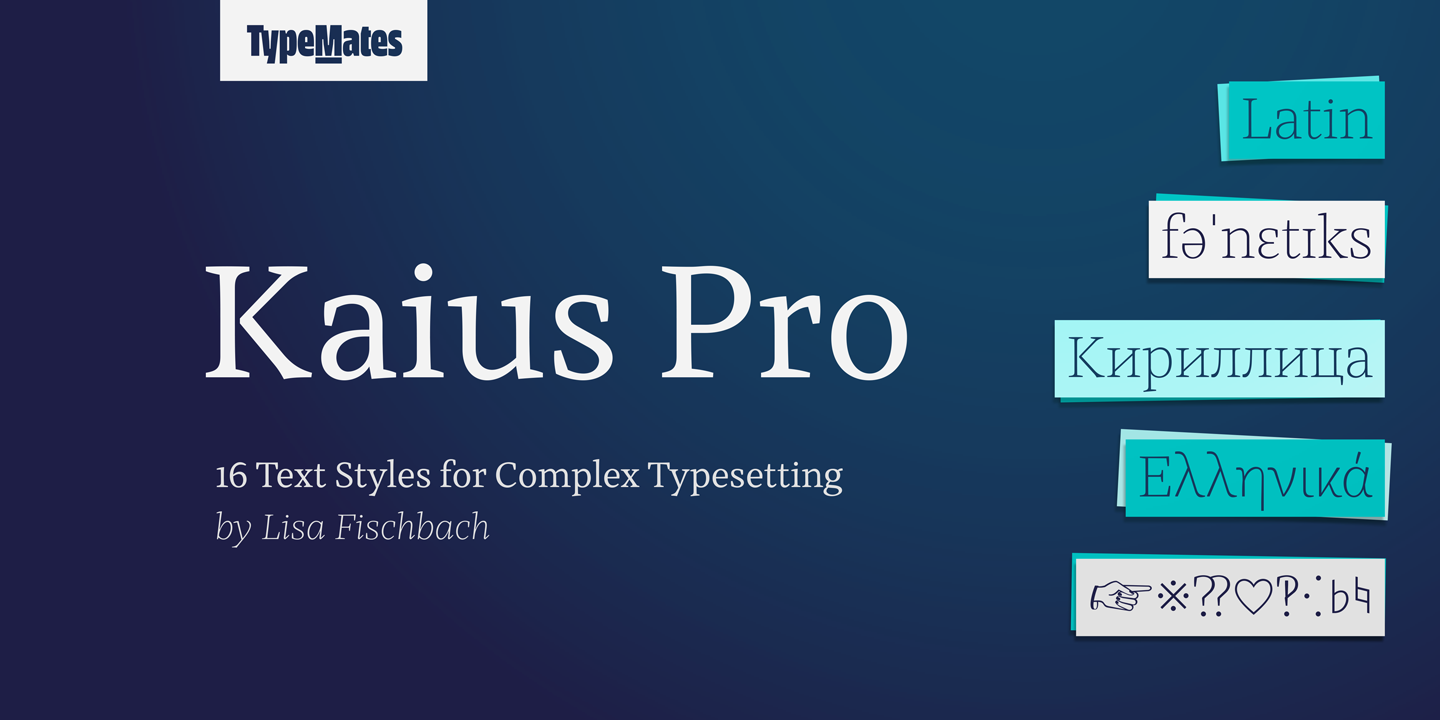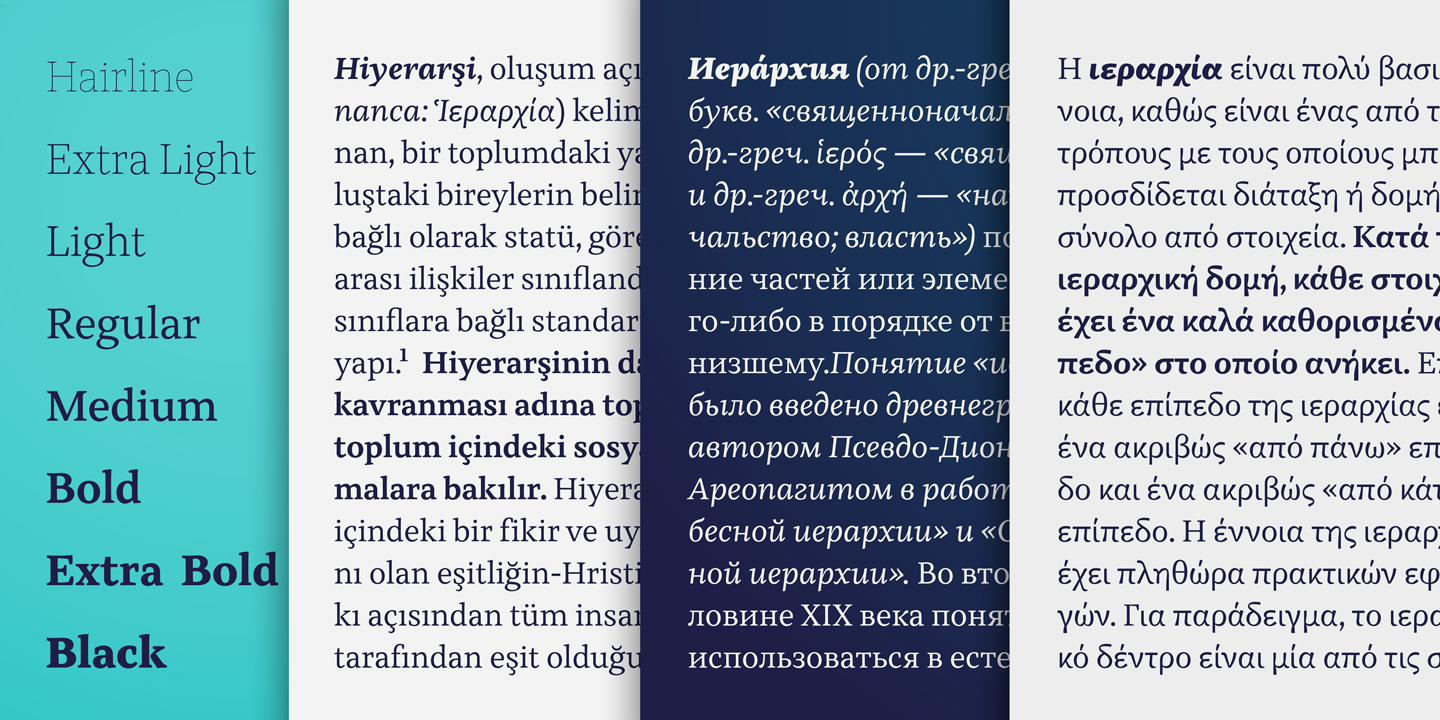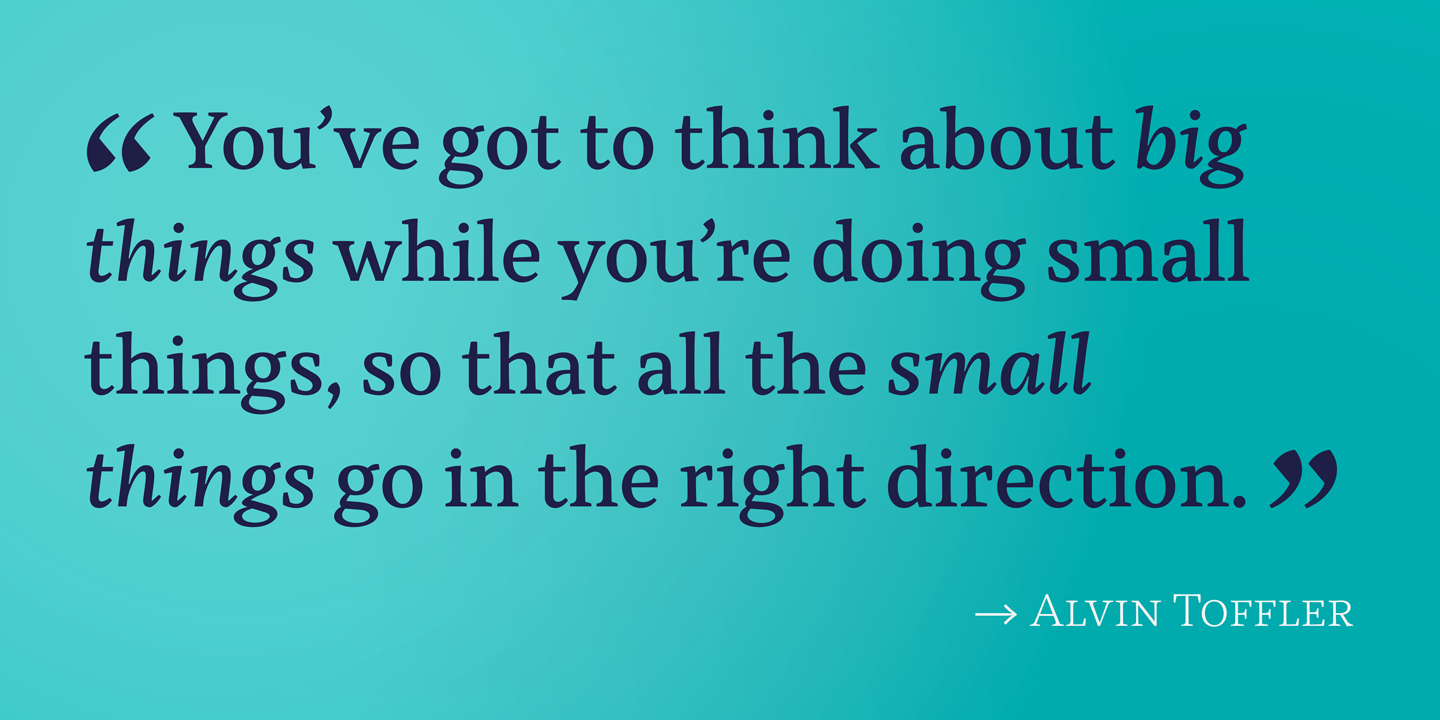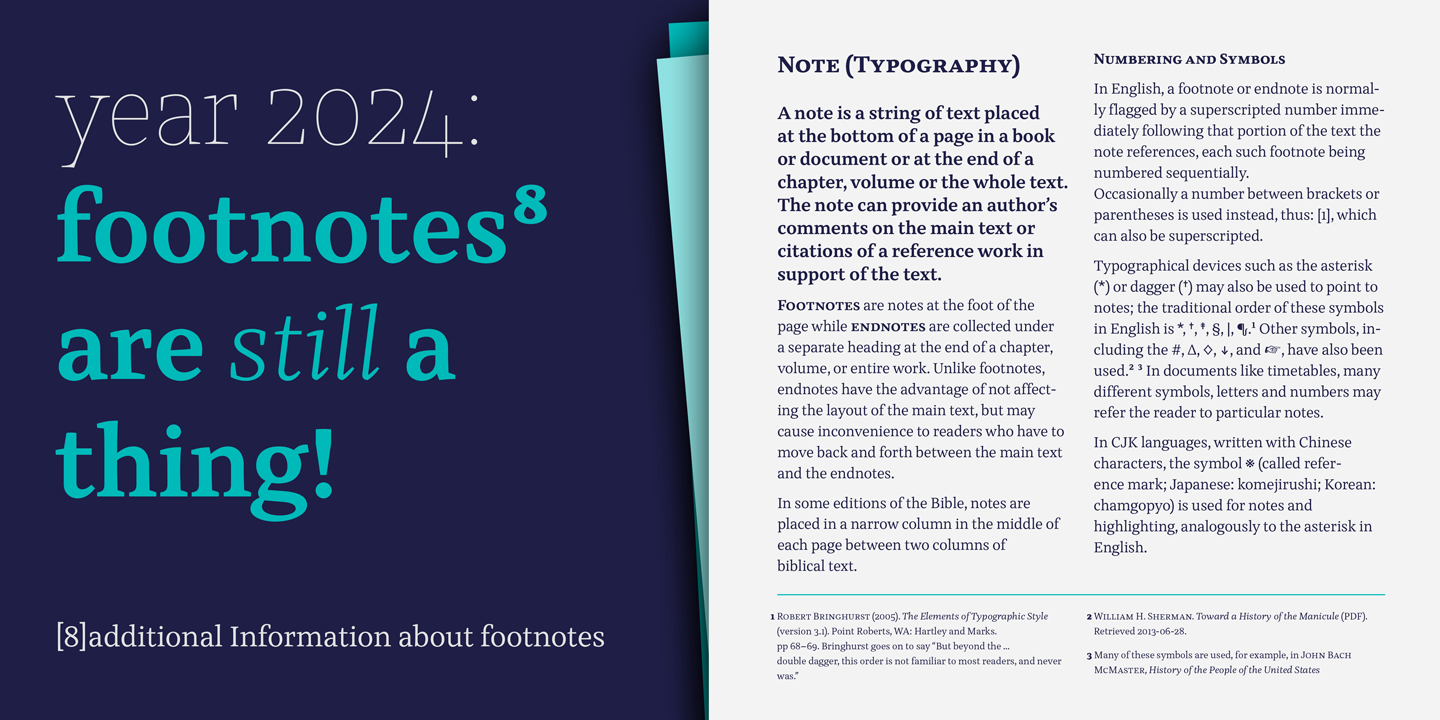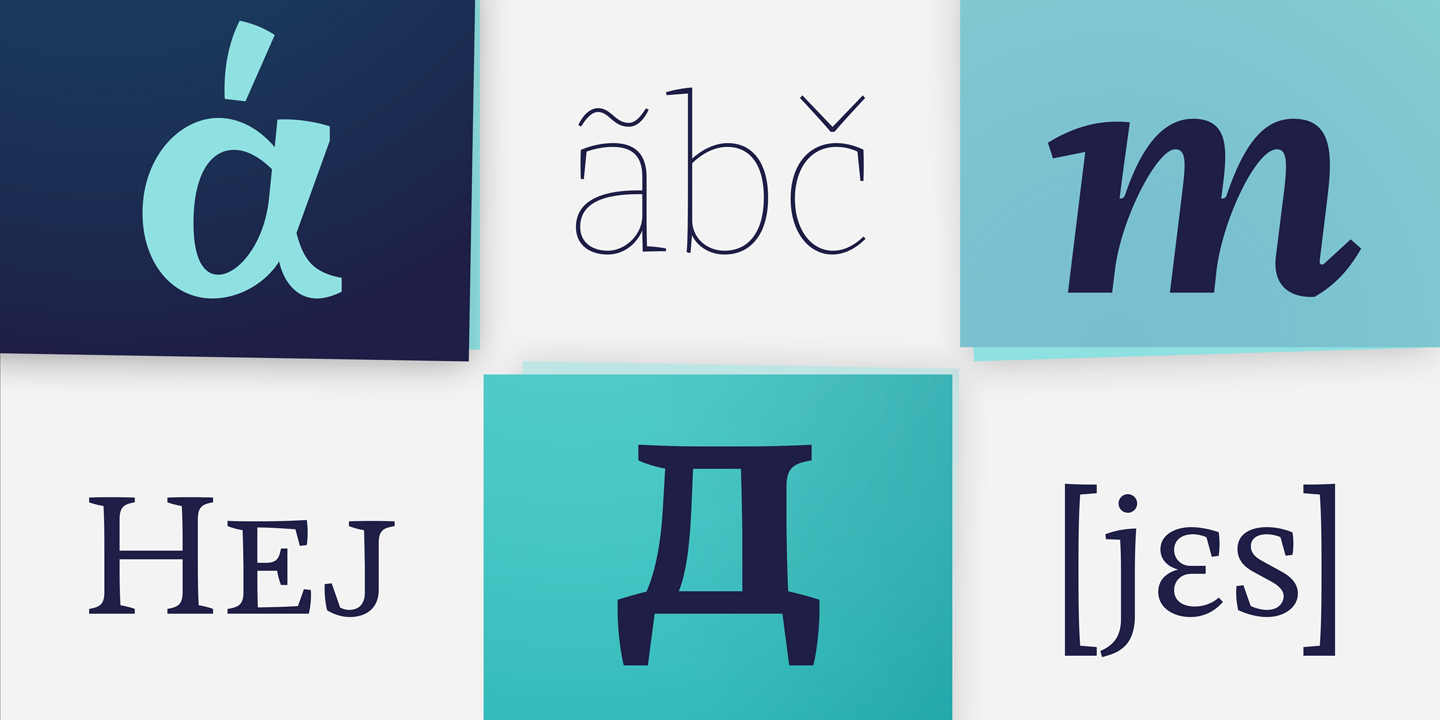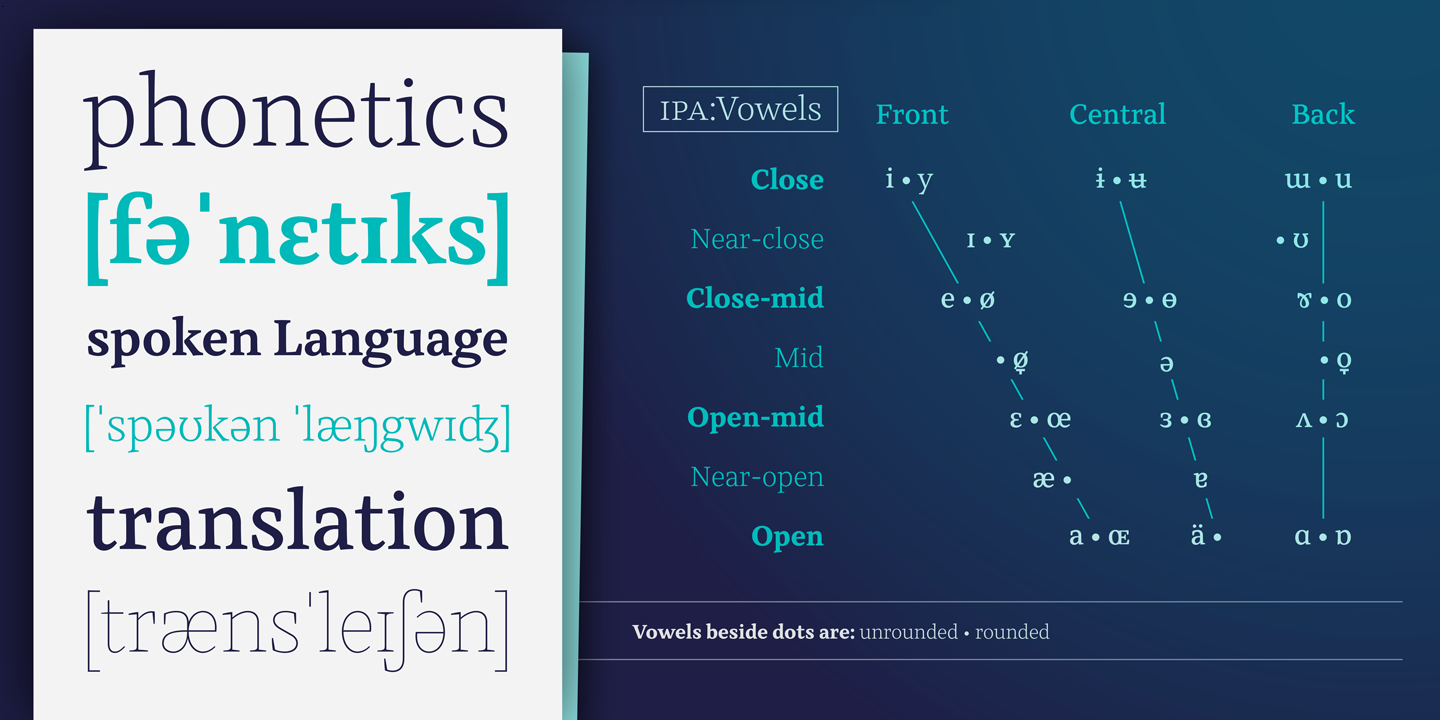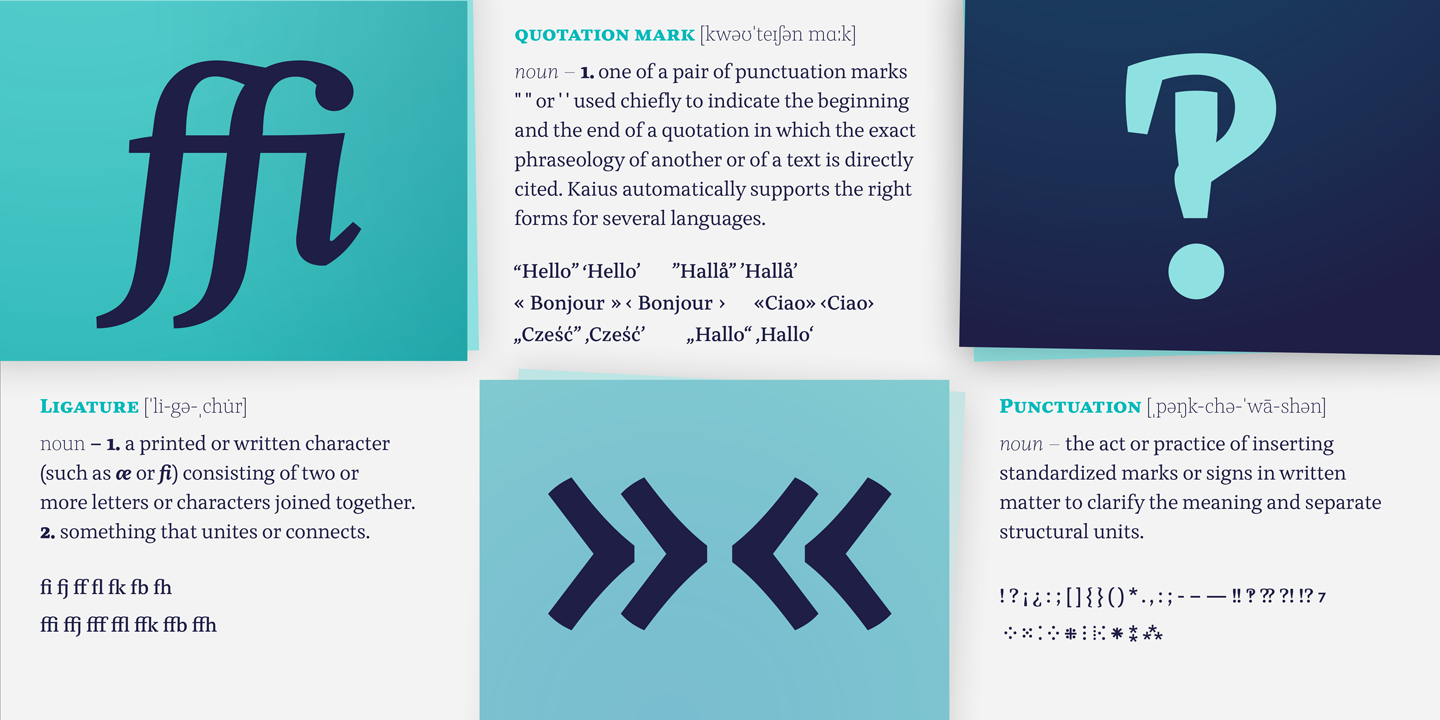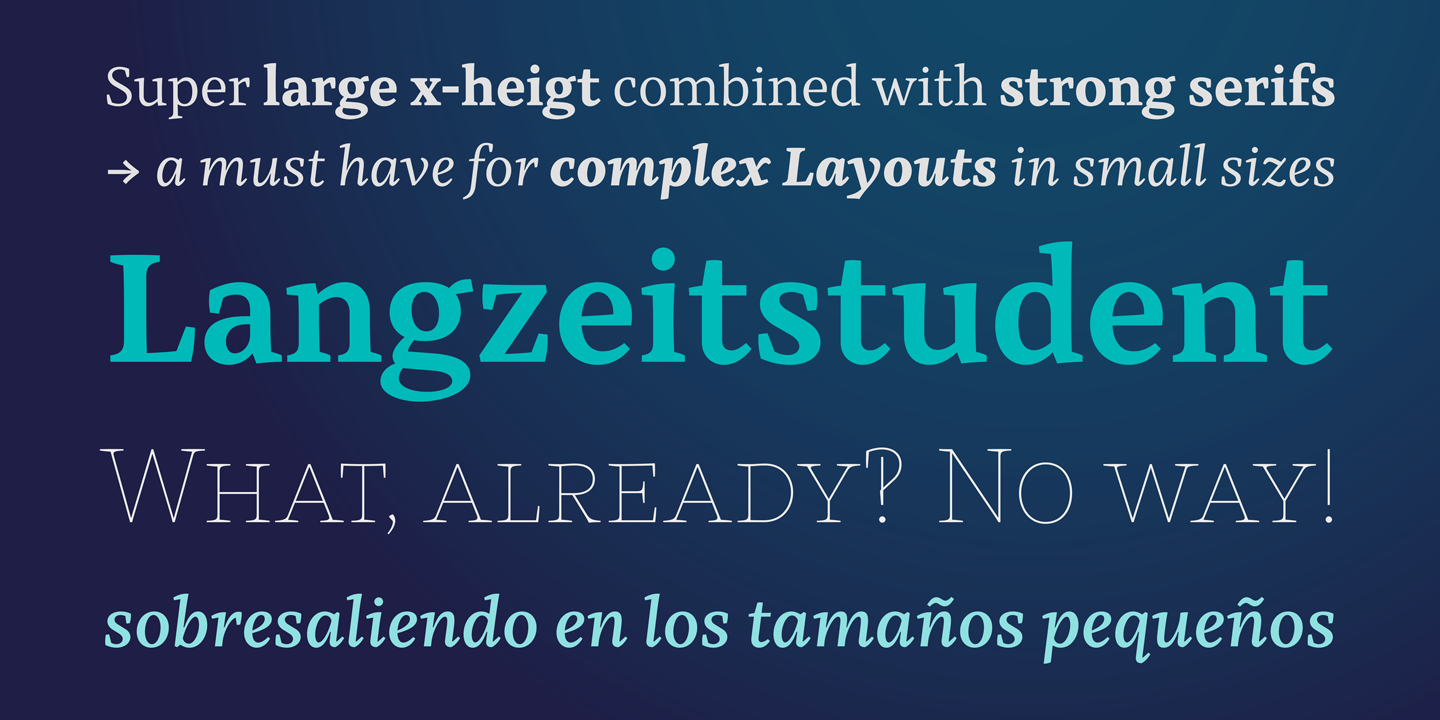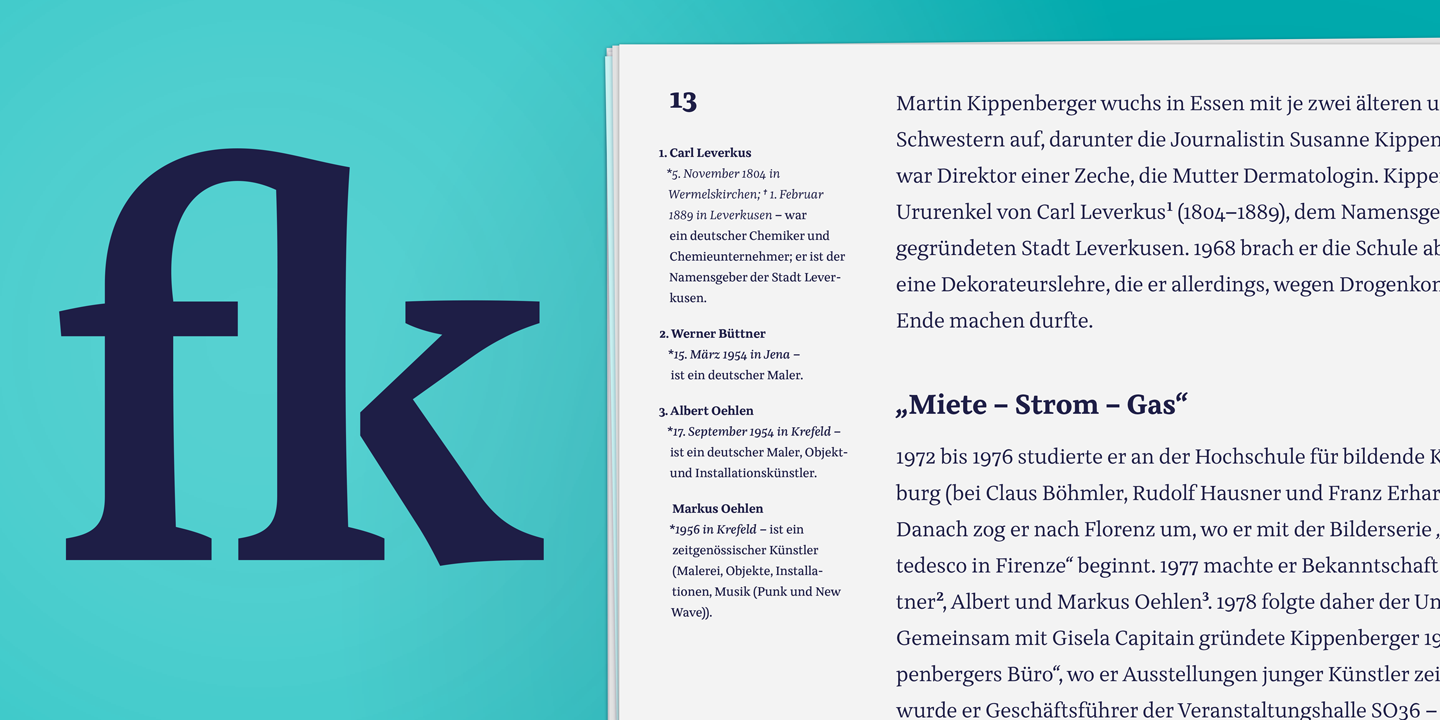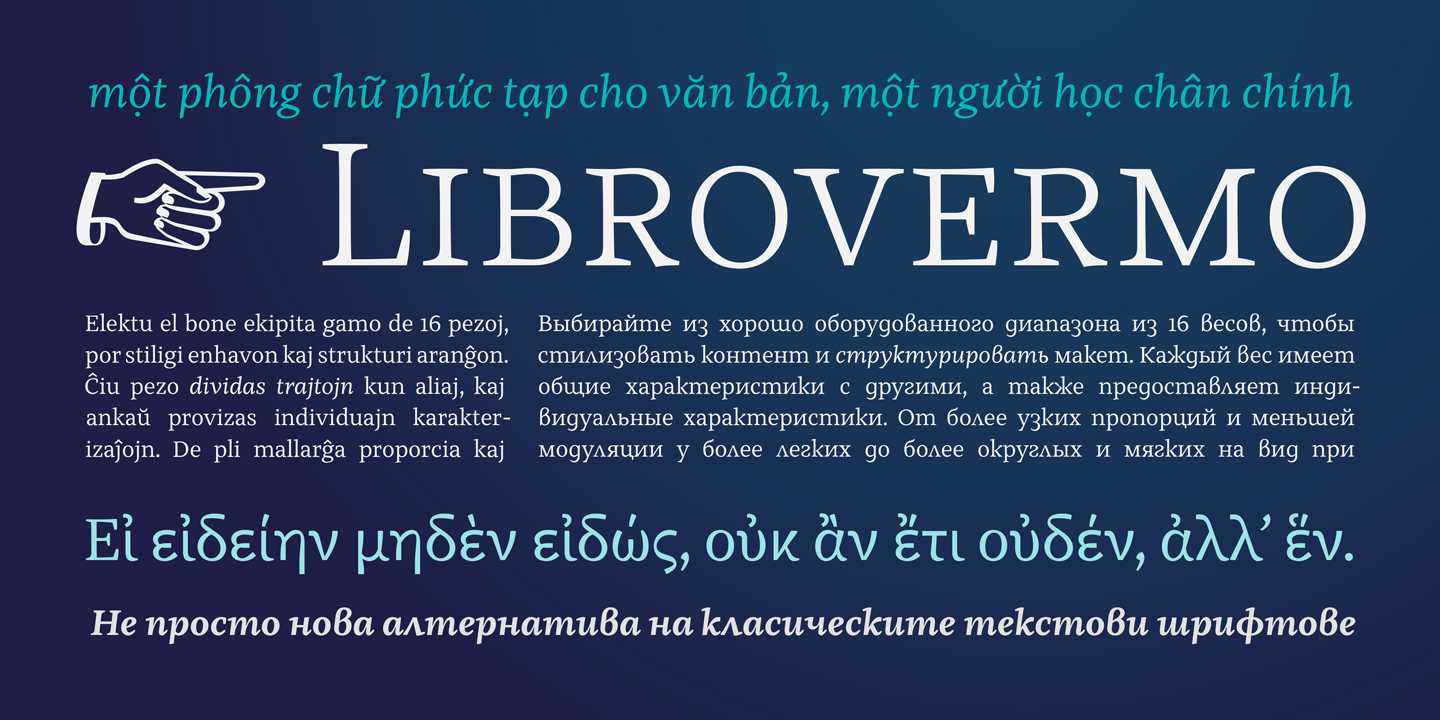
Kaius Pro is a professional font set. Specialized for small documents and complex layouts, Kaius is capable of handling structural, linguistic and character requirements with ease.
Kaius is more than just a new replacement for classic text typefaces. With a wide x height, wide rounded letters, it’s also extremely legible. Sharp vertical lines emphasize Kaius’ rhythm and are delicately balanced with solid base lines, crucial for legibility.
Kaius Pro Font Family supports a lot of languages. Along with Greek and Cyrillic, it supports almost any language that uses the Latin alphabet, from Icelandic to Vietnamese. It pays attention to localized forms, supports historical Cyrillic and Cyrillic scripts, and is fluent in the International Phonetic Alphabet and many special characters used in academics and words. vocabulary. All in all, Kaius’ character set includes an extensive 2,500 glyphs. Anything you might need, Kaius will cover.